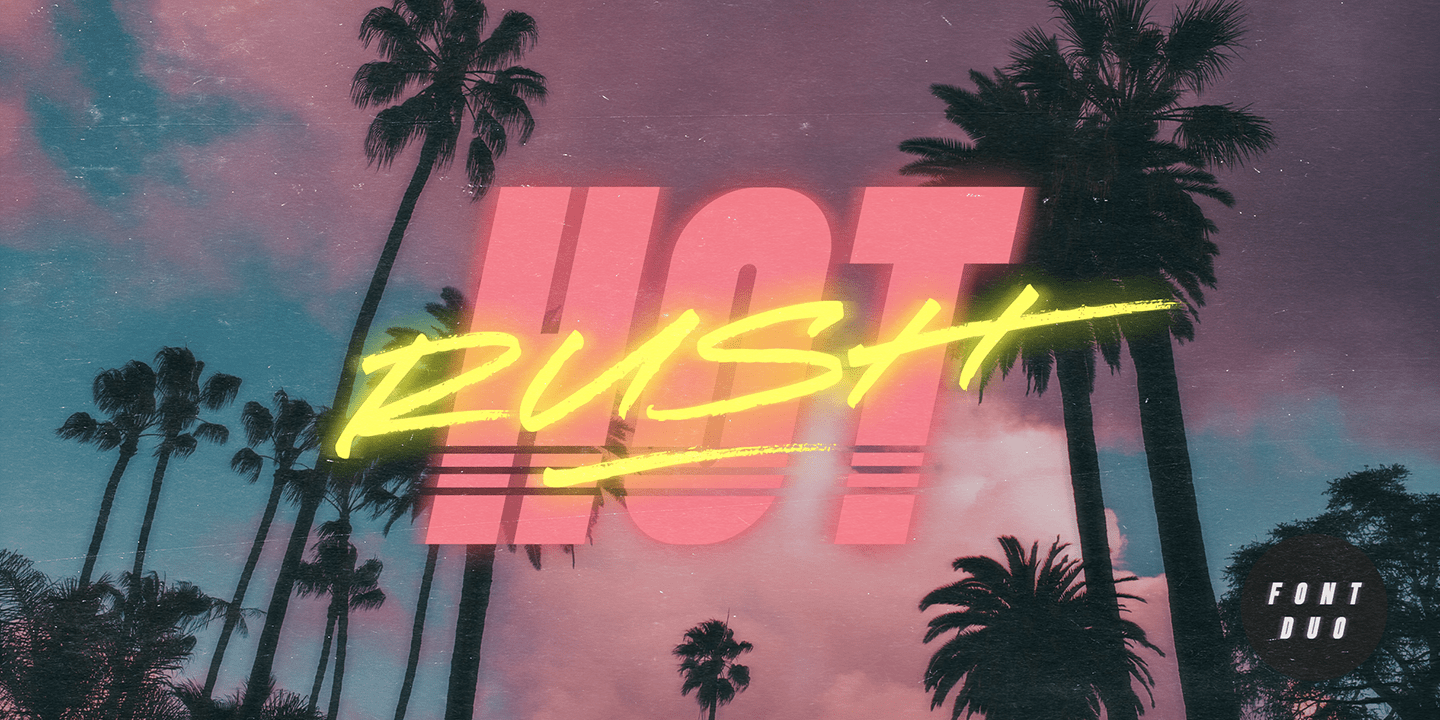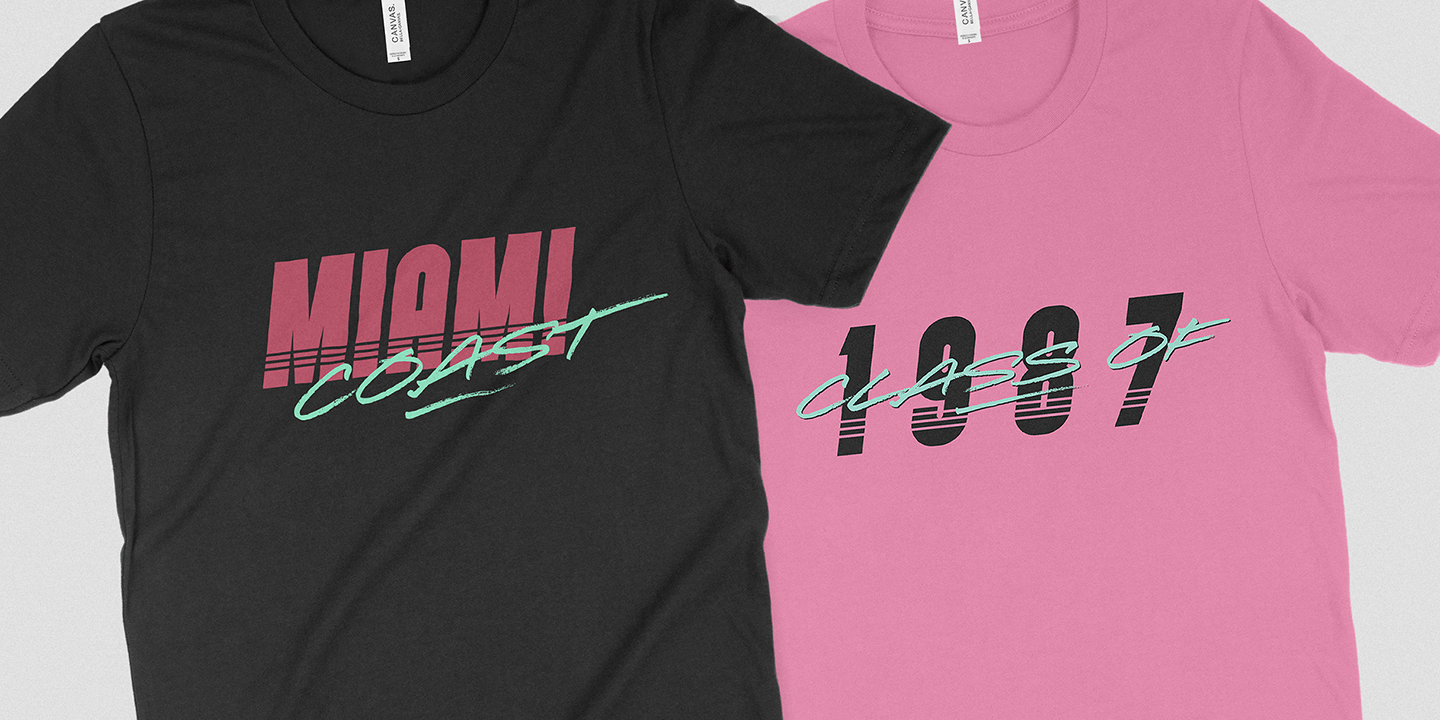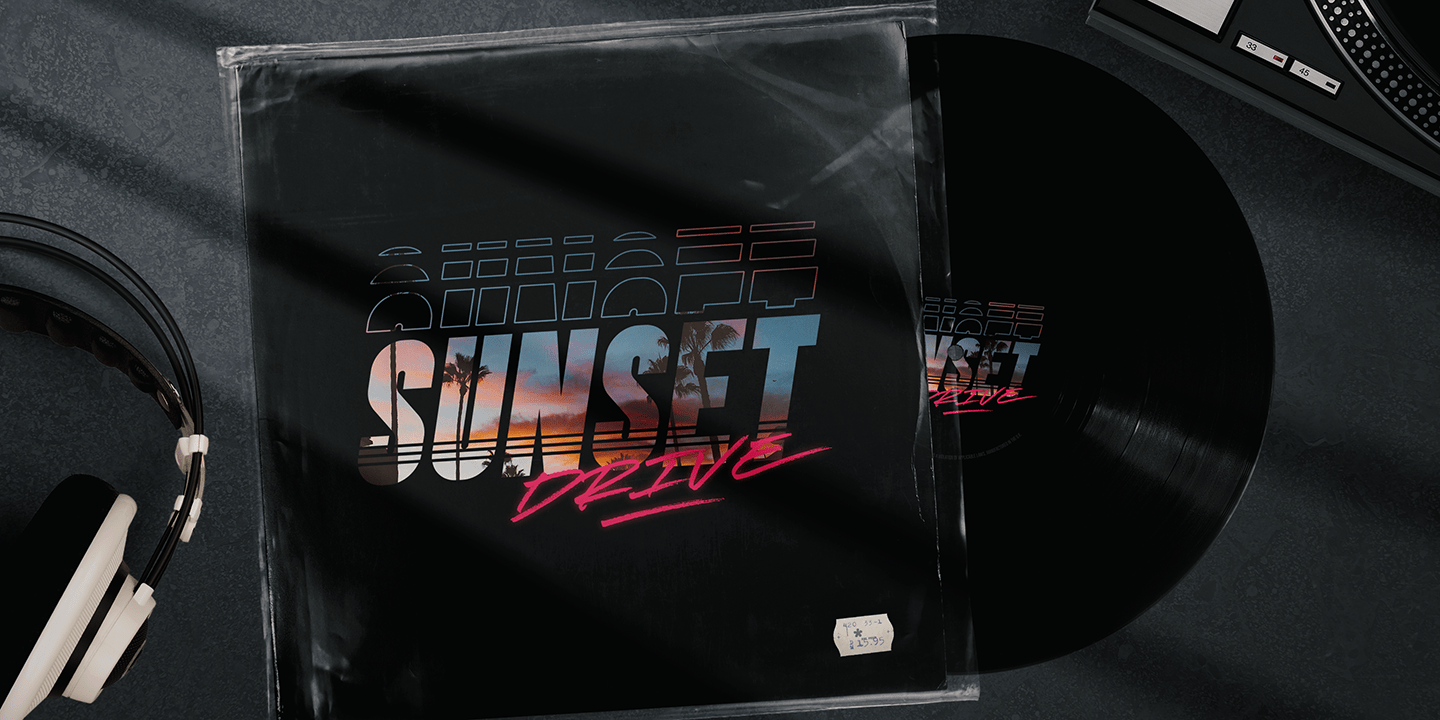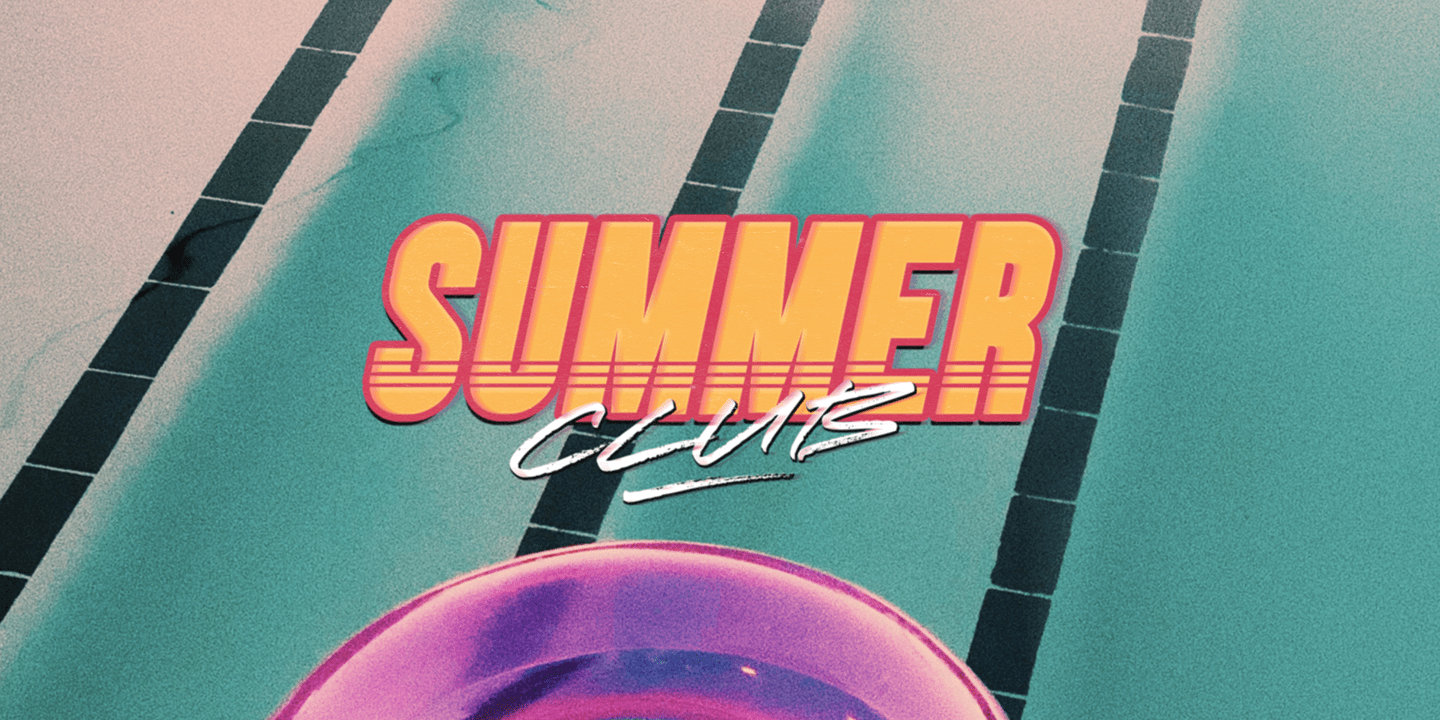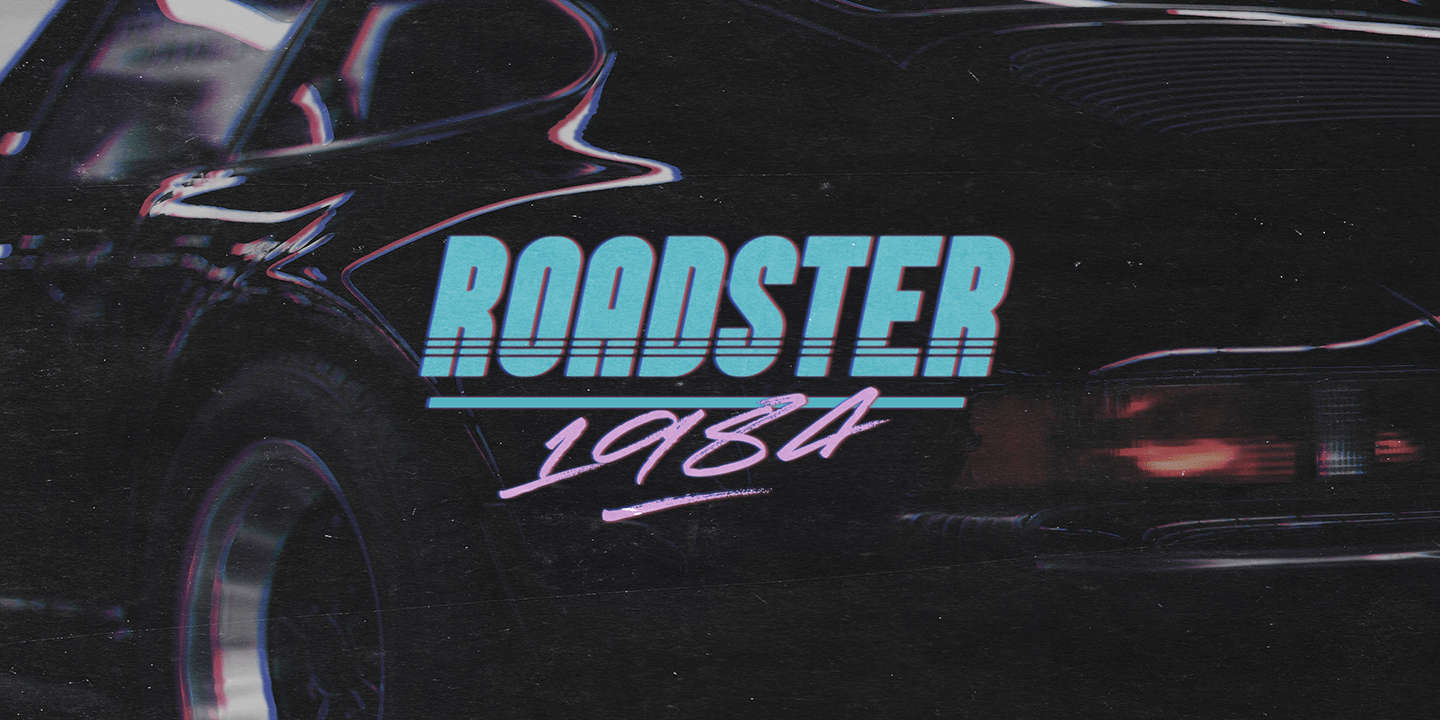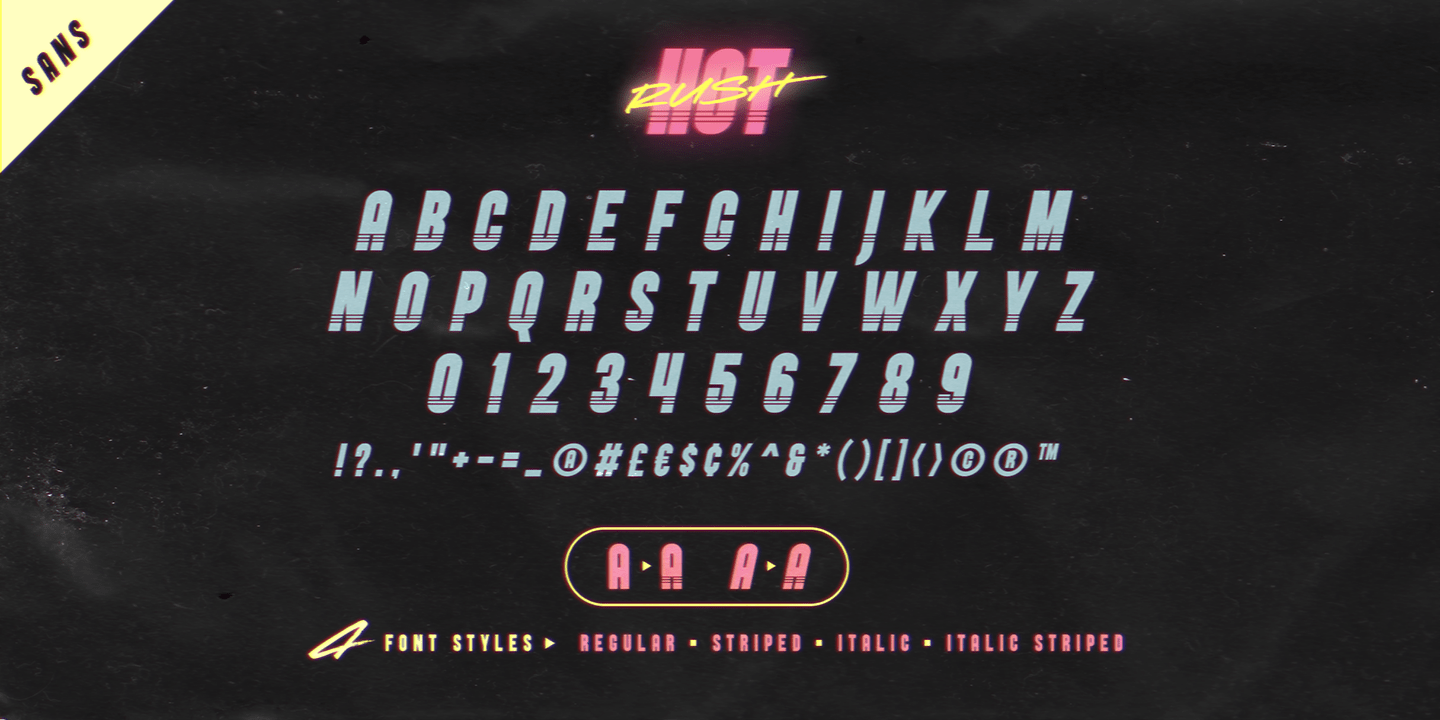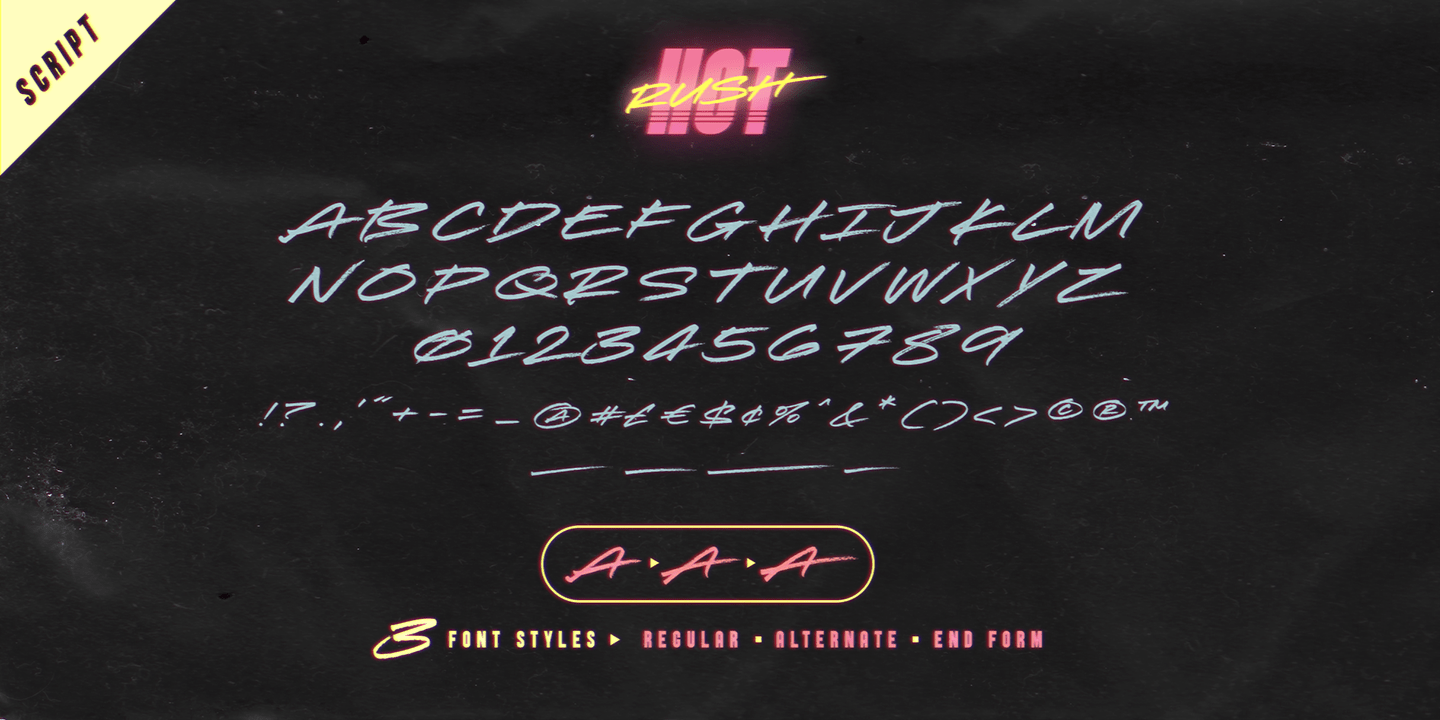
Hot Rush
Prepare yourself for a wild retro ride with Hot Rush – 80s nostalgia is about hit you harder than a DeLorean at 88 miles per hour. This Sans & Script font duo were simply meant to be together; the unmistakeable clean & condensed sans is complimented perfectly by the long, fast, textured strokes of the script. It’s the ideal font pairing for retro-inspired high impact display text, merchandise design, logos, packaging & more.
The Hot Rush font family consists of;
Hot Rush Script • A fast, textured script font hand-made with a marker pen. Hot Rush Script contains uppercase-only characters, however a full alternate set of uppercase letters is available when you switch to lowercase. Supports a full set of numerals & punctuation.
Hot Rush Sans • A condensed sans-serif font with a big impact, containing uppercase-only characters. Supports a full set of numerals & punctuation.
Hot Rush Sans Striped • A second version of Hot Rush Sans, with vertical stripes running through each letter for added retro style.
Italic Versions • For Hot Rush Sans & Hot Rush Sans Striped are also included as separate fonts.
End Forms For Hot Rush Script are available for the letters A, C, E, F, G, H, K, L, R & T. These have elongated horizontal strokes and look great as the last letter of a word. Simply turn on ‘Stylistic Alternates’ with any Opentype capable software to access these characters.
4 Swashes For Hot Rush Script are available, these are great for underlining your text for extra style. Simply type any of the square brackets [ ] { } in the Hot Rush Script font to access the swashes.